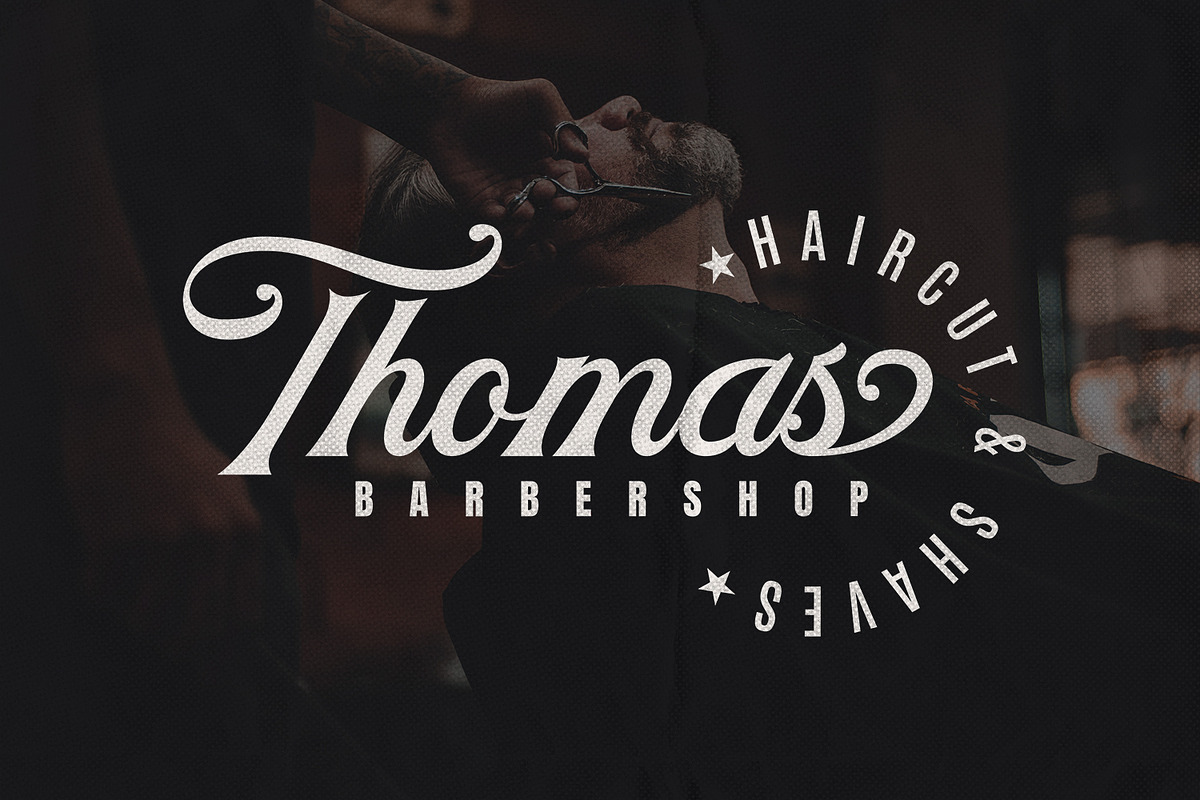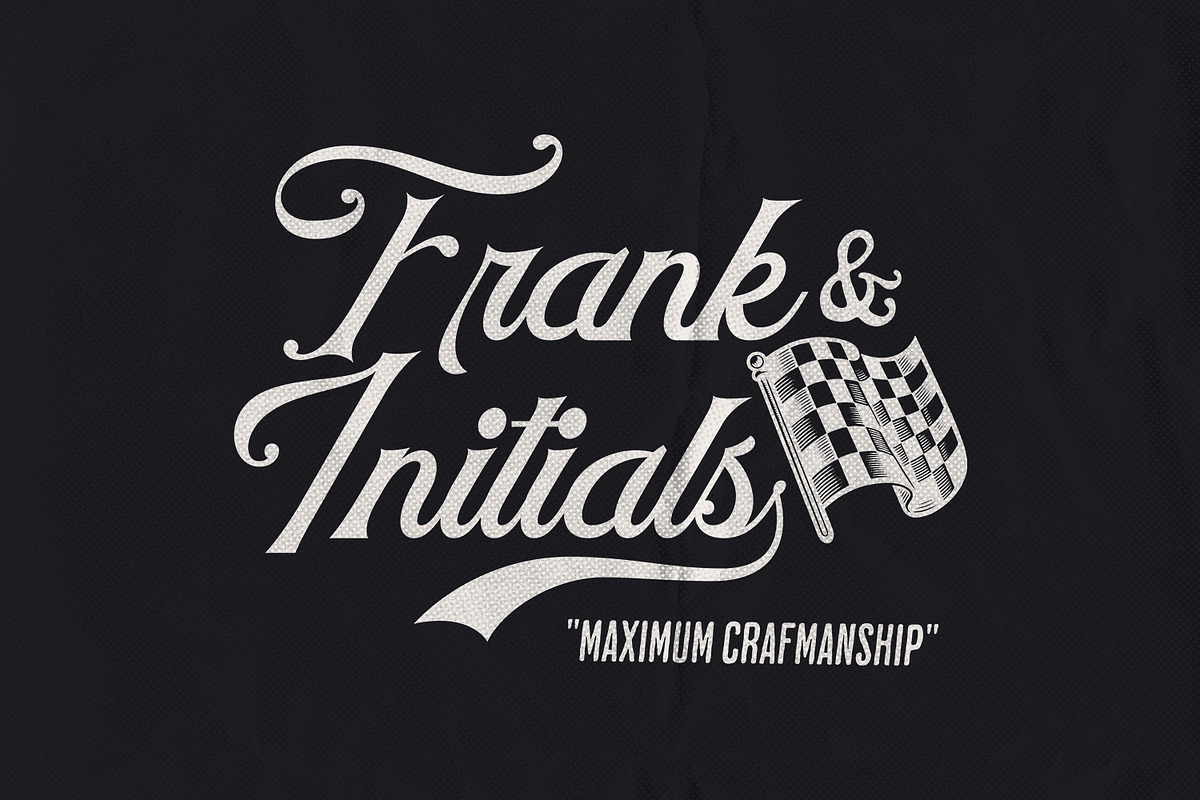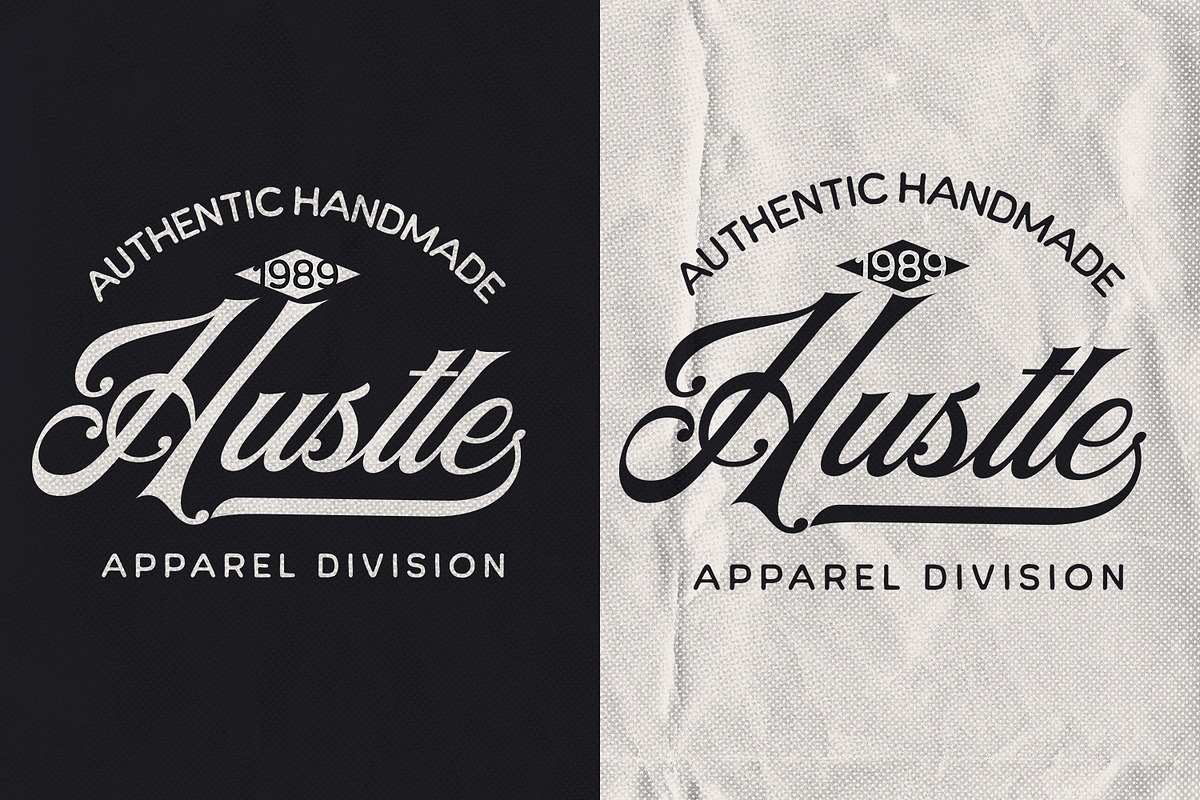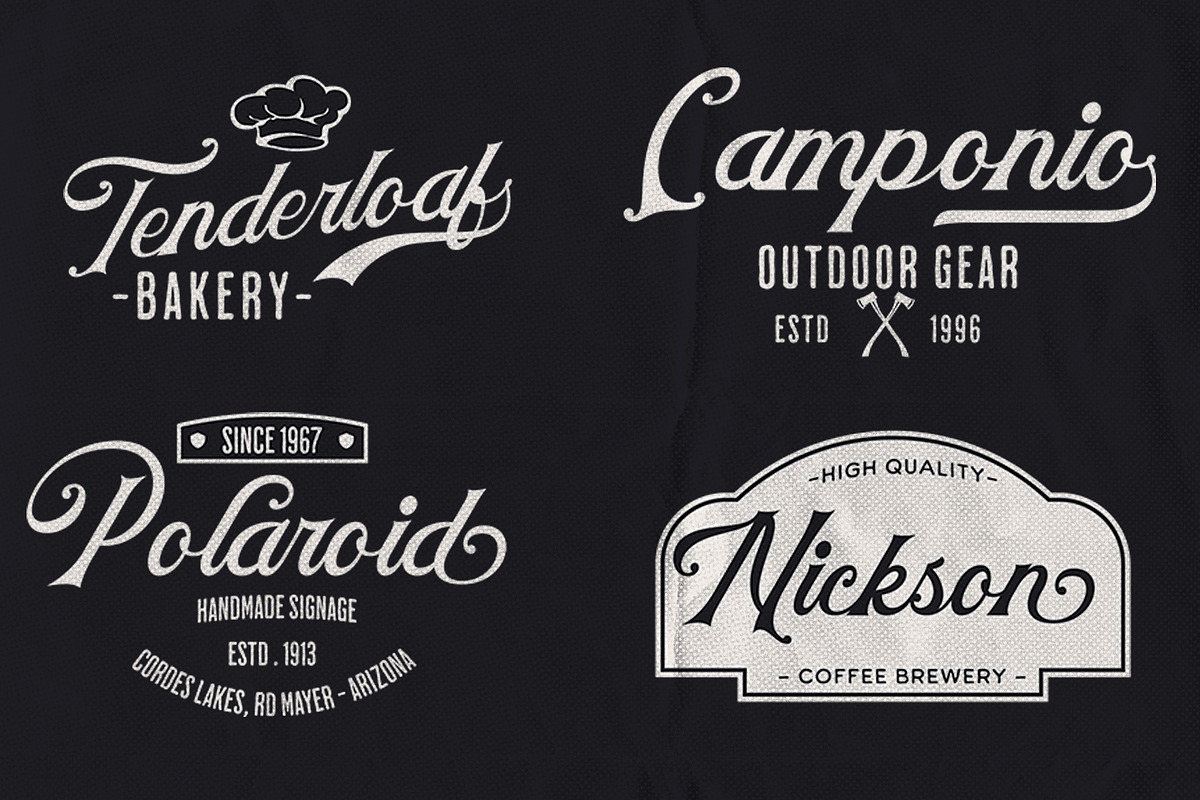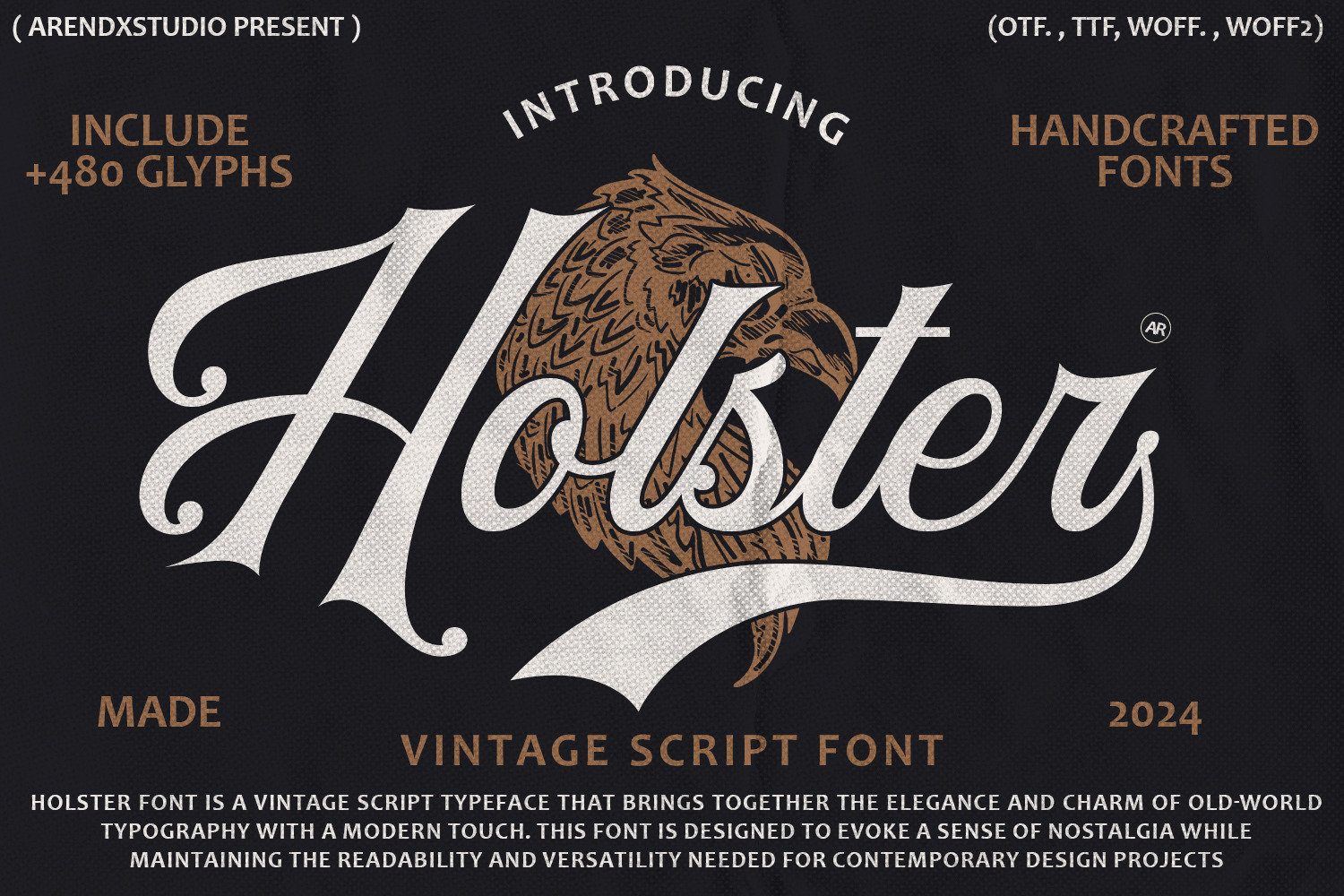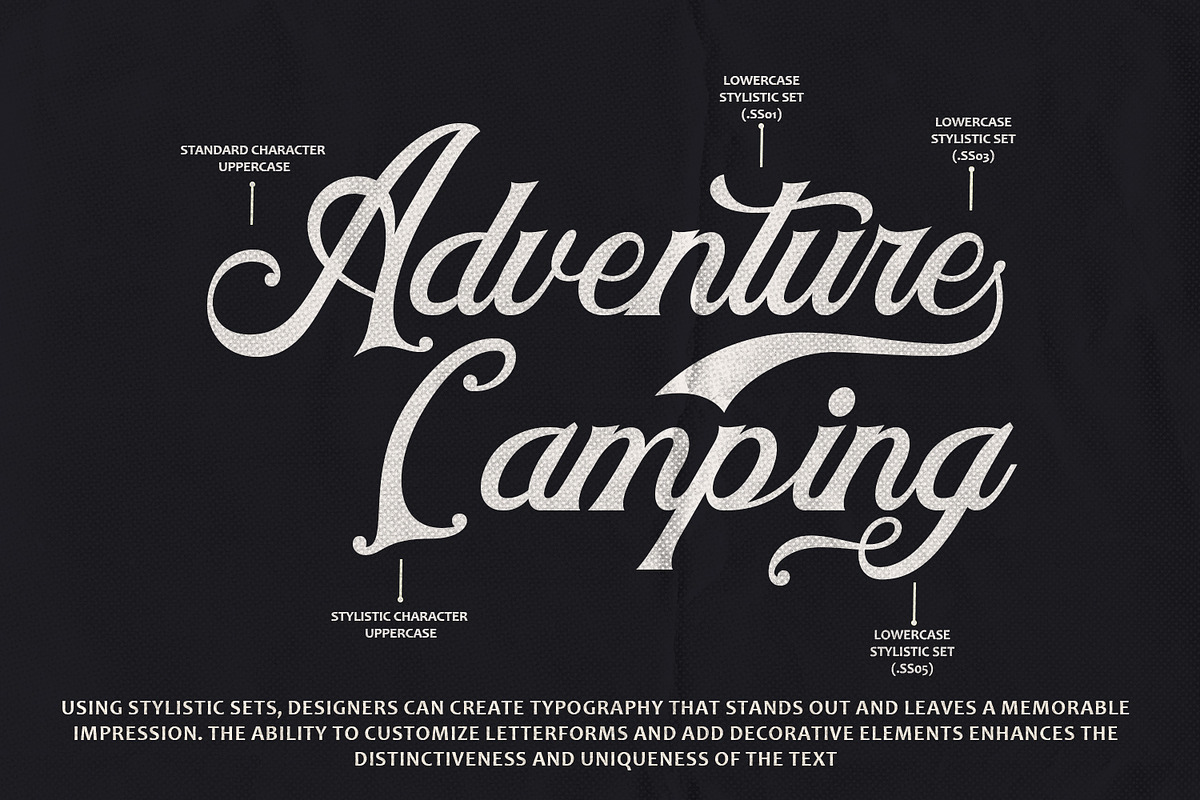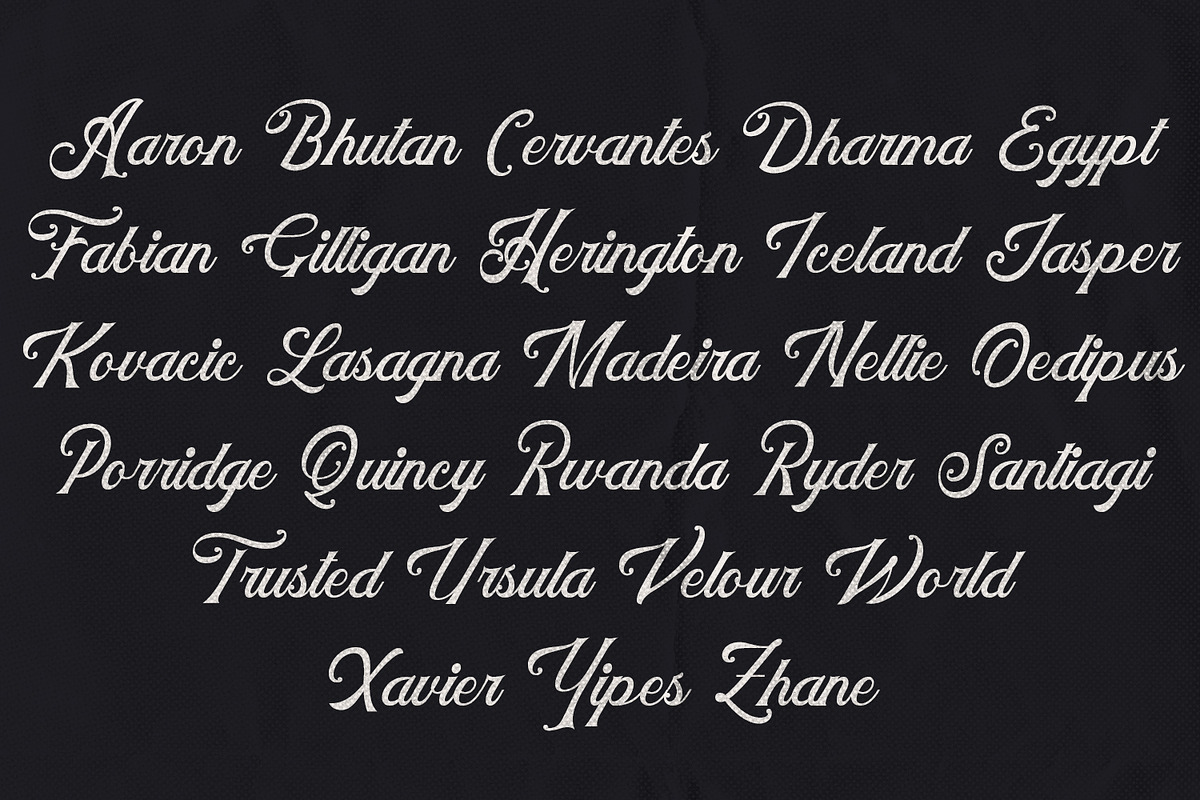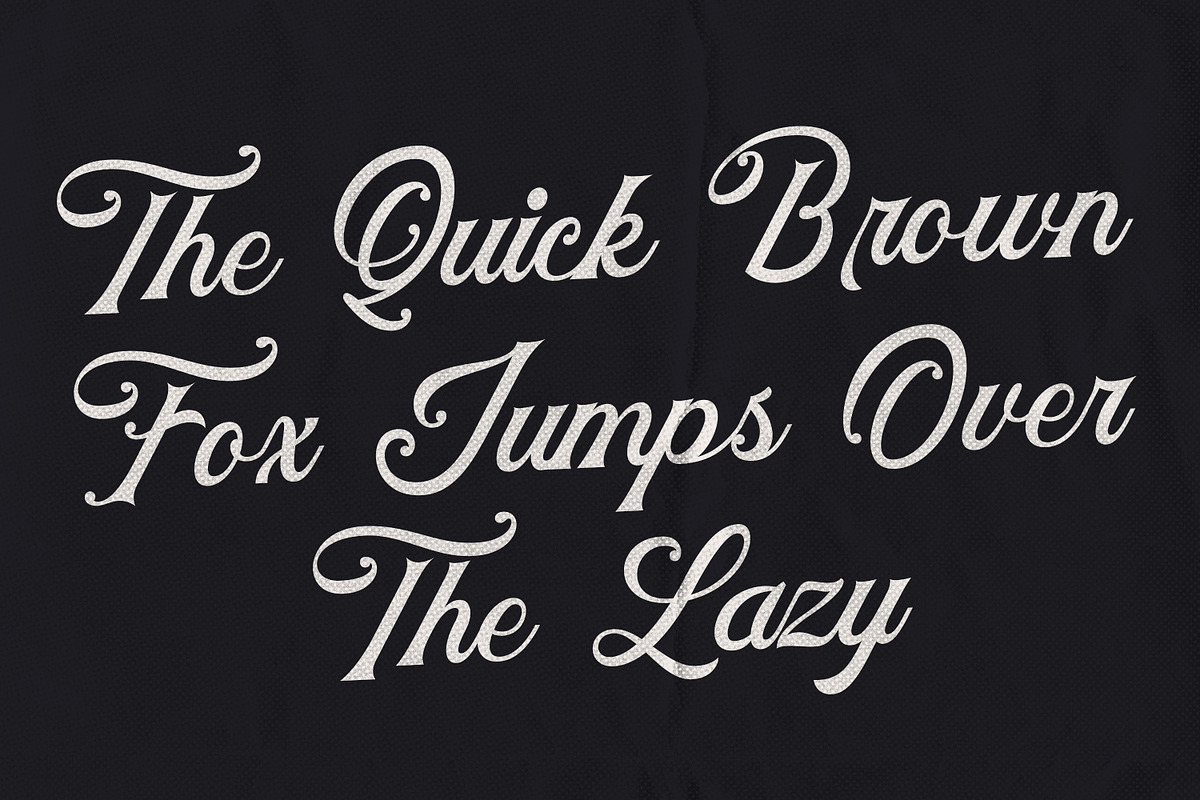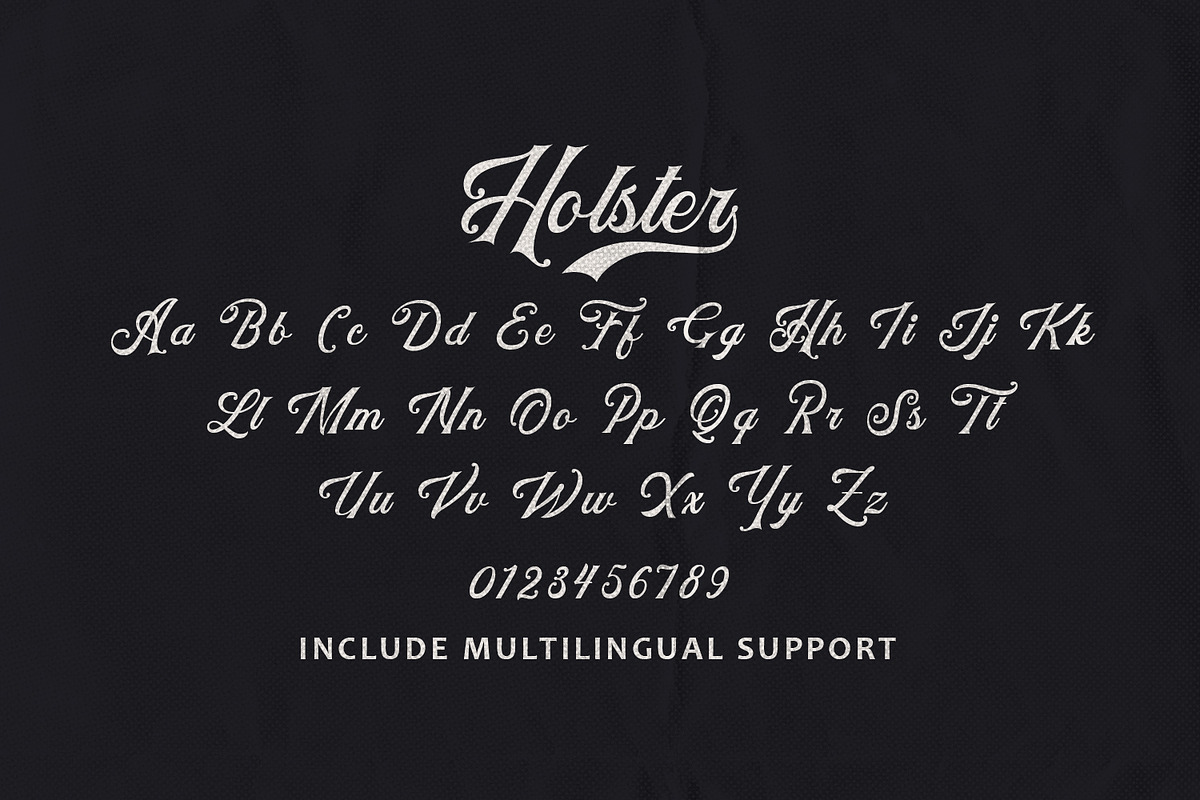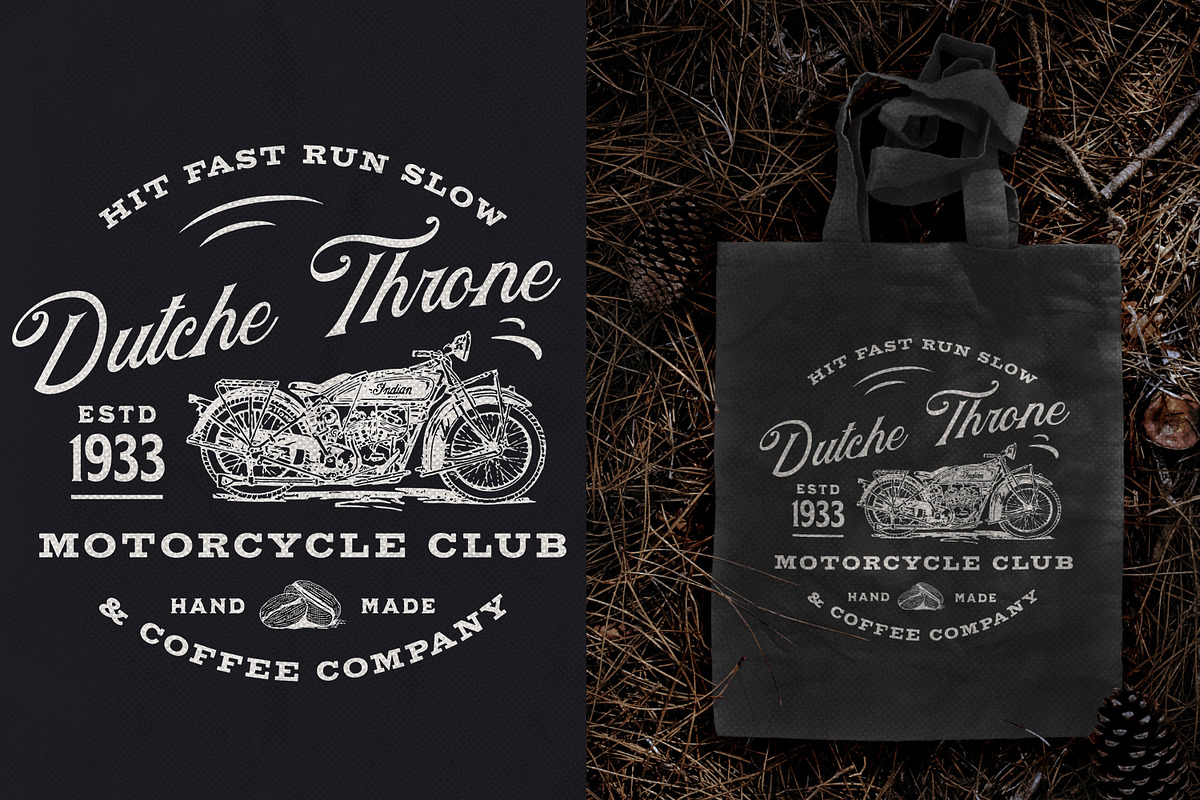
Holster - Vintage Script Font
### Holster: Vintage Script Font
Font Name: Holster
Type: Vintage Script Font
Overview: Holster is a beautifully designed vintage script font that exudes the charm and elegance of classic penmanship. Its intricate and stylish design makes it perfect for projects that need a touch of nostalgic sophistication.
#### Key Features:
Vintage Aesthetic:
- Classic Handwriting Style: Holster features flowing, connected letters that are reminiscent of traditional handwriting, giving it a timeless appeal.
- Nostalgic Design: The vintage elements in Holster add depth and character, making it ideal for creating designs with a historical or retro feel.
Versatile Applications:
- Branding and Logos: Holster’s unique vintage style makes it perfect for crafting distinctive logos and brand identities that stand out.
- Wedding Invitations: Its elegant script is ideal for adding a romantic and sophisticated touch to wedding stationery.
- Editorial Design: Enhances the aesthetic of magazines, book covers, and other printed materials with its classic and refined look.
Character Set:
- Complete Alphabet: Includes uppercase and lowercase letters, numerals, and punctuation marks, providing a full range of characters for versatile use.
- Stylistic Alternates: Offers a variety of alternative character designs to allow for customization and creative flexibility.
Additional Features:
- Ligatures: Specially designed ligatures ensure a smooth and natural flow of the text, enhancing readability.
- Swashes and Flourishes: Decorative elements can be added to characters to give an extra touch of elegance and style.
#### Usage Examples:
- Logo Design: Holster’s vintage script style is perfect for creating logos that convey a sense of tradition and quality, making a memorable impression.
- Wedding Invitations: Use Holster to create timeless and beautiful wedding invitations that capture the essence of romance.
- Product Packaging: Add a layer of sophistication to product labels and packaging with Holster’s intricate and nostalgic design.
Stylistic set
Conclusion
#### Conclusion: Holster is a vintage script font that brings timeless elegance and classic charm to any project. Its beautiful design and nostalgic appeal make it an excellent choice for a wide range of applications, from branding to wedding invitations. With Holster, every design becomes a work of art, infused with a sense of history and sophistication.